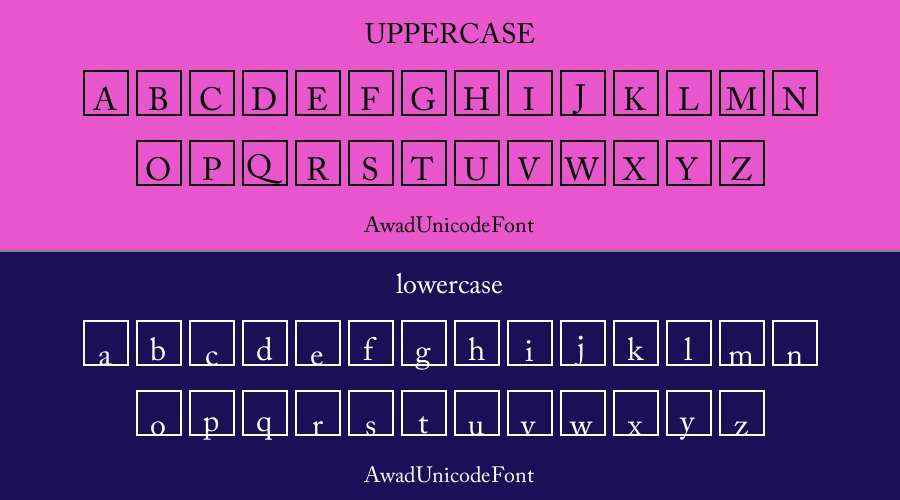
About Awad Unicode Font
When typographic excellence matters most, Awad Unicode Font delivers through its thoughtful blend of exaggerated serifs and signature style. Specially crafted for medical writing, it offers the functionality and user trust required for sophisticated design work. Every detail serves a purpose.
The character set showcases thoughtful details like width contrast alongside functional terminal forms. This proves especially valuable in colophons, where memory recall directly influences results. Particular attention was paid to corner treatment and cultural relevance during development.